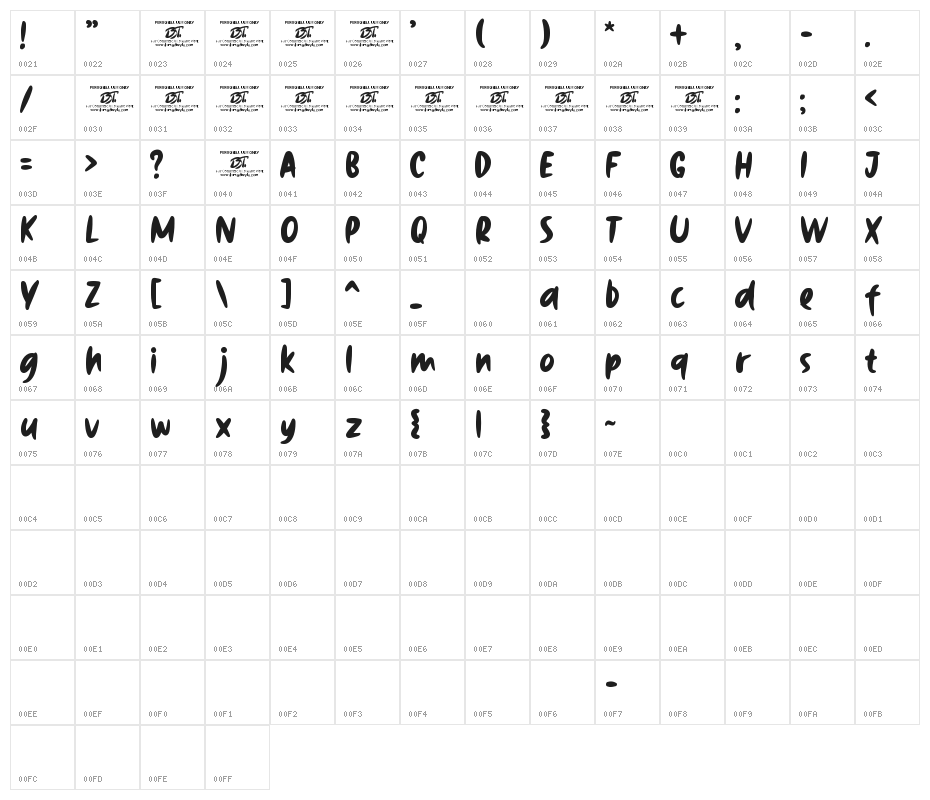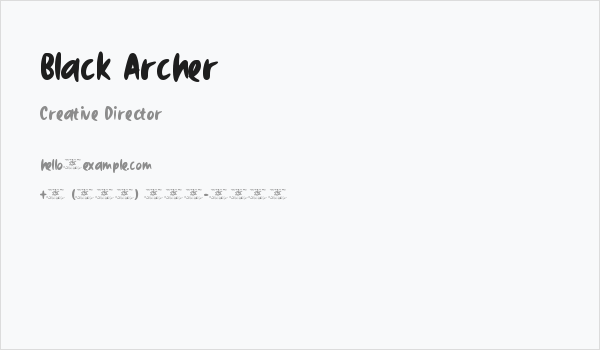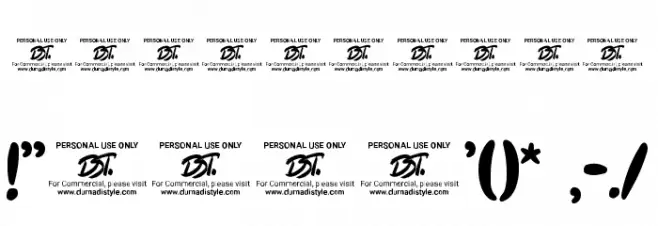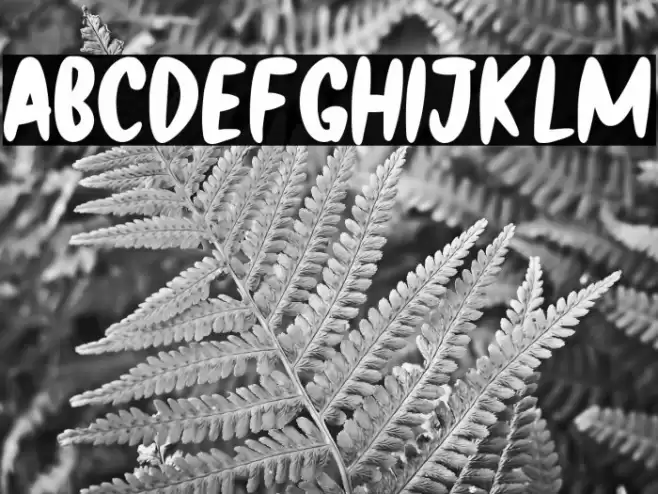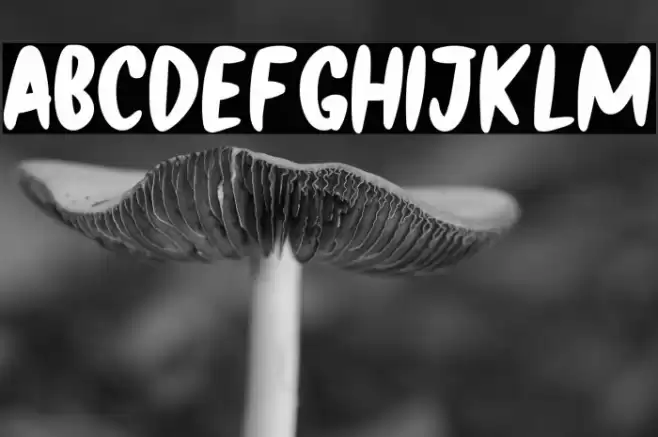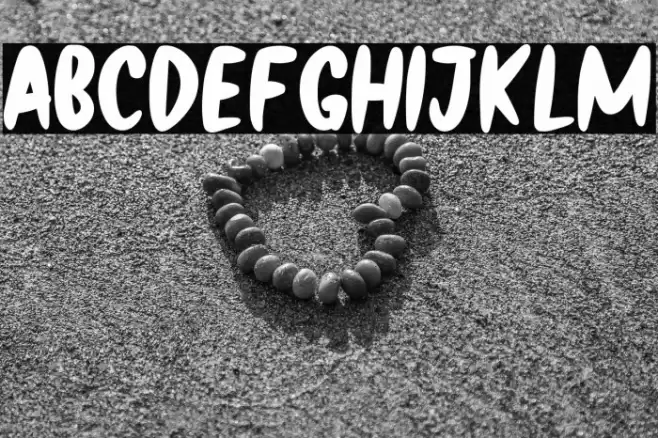
Black Archer Font
This font features a bold, handwritten style with a playful and energetic character. The letters are thick and rounded, giving a sense of warmth and approachability. Each character has a unique, slightly irregular shape, adding to its casual and informal appearance. The uppercase and lowercase letters are well-balanced, with consistent stroke widths that maintain readability. The font includes a full set of numerals and a selection of special characters, making it versatile for various design needs. Its bold presence makes it suitable for eye-catching headlines and creative projects.
| Proposed Projects | Ideal for posters, greeting cards, children's books, and branding projects that require a friendly and approachable look. |